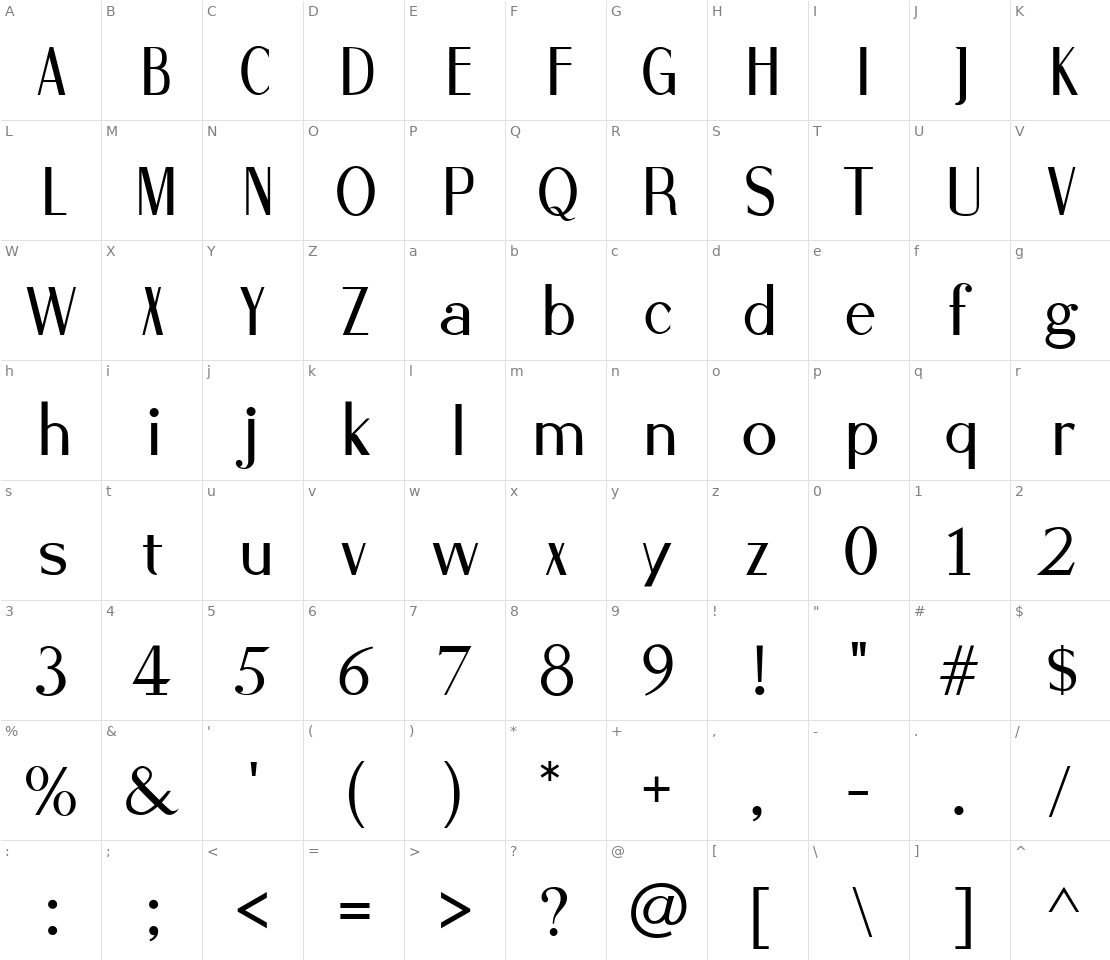
1927 Epoque
1927 Epoque is a light, elegant transitional serif from Galdino Otten that channels the refined sophistication of 1920s Art Deco typography. The letterforms are delicate and poised, with enough period character to feel genuinely vintage without becoming costume-like. Best at headline sizes for editorial work, event branding, or anything that calls for a touch of Jazz Age class.